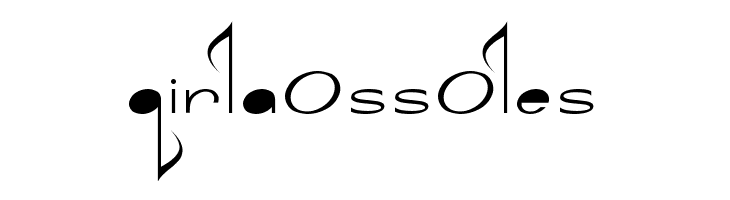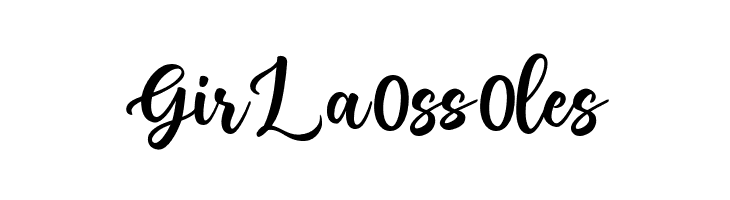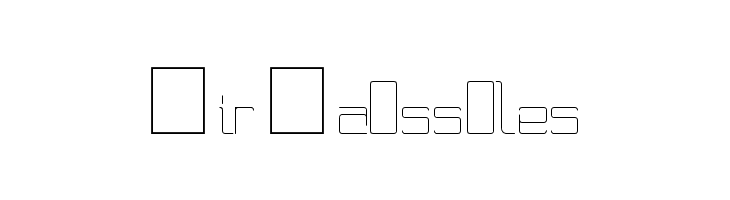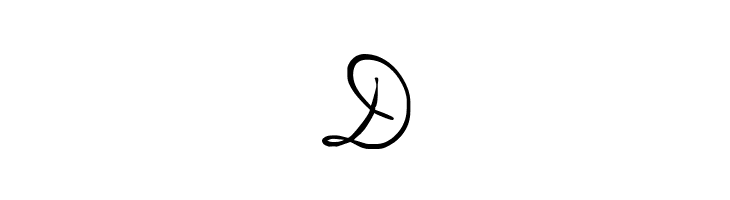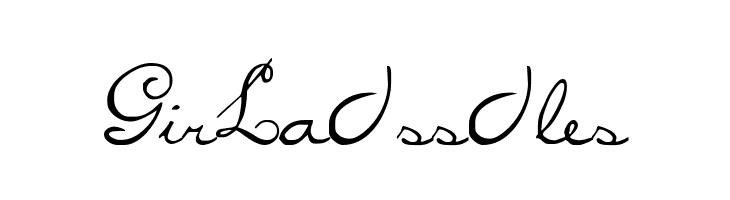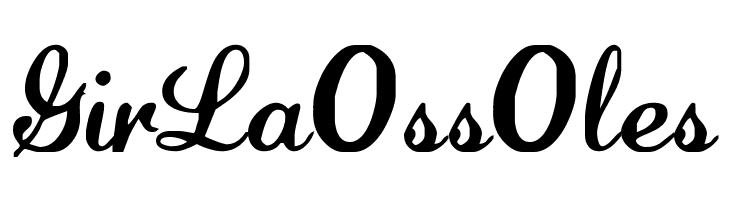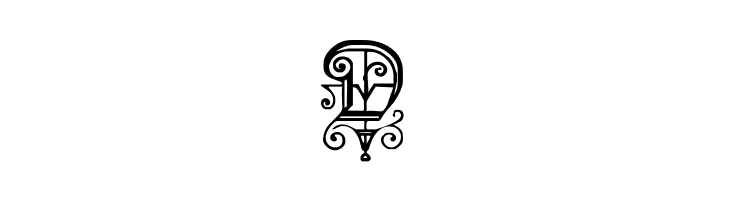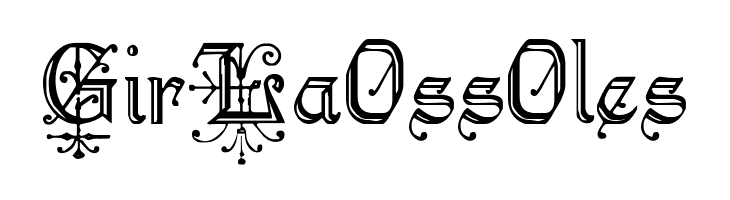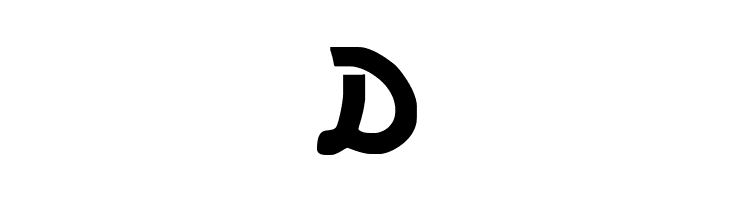
( Fonts by DeNada Industries - Mike Allard )
A flowing, elegant cursive font with ornate uppercase and smooth lowercase letters.
( Fonts by DeNada Industries - Mike Allard )
A bold, dynamic script font with a playful and energetic style.
( Fonts by DeNada Industries - Mike Allard )
A decorative cursive font with elegant loops and swashes.
( Fonts by DeNada Industries )
A sophisticated script font with flowing, ornate cursive letters and elegant swashes.
( Fonts by endemiqLabs )
A creative font blending musical notes with modern letterforms.
A cursive, handwritten-style font with elegant loops and swashes.
( Fonts by Eric Grunin )
A modern serif font with sharp, angular serifs and dynamic stroke variations.